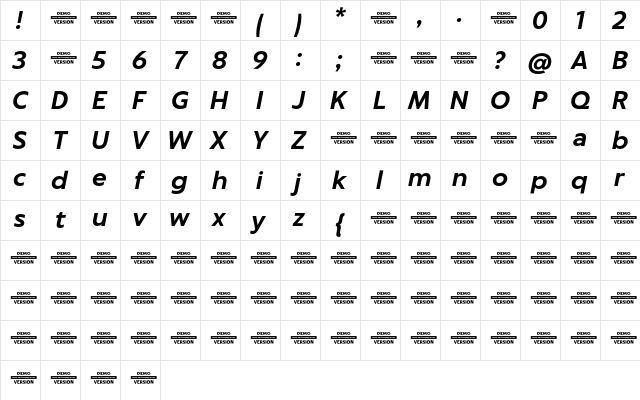
Captura Bold Italic Demo Font Preview
Captura Bold Italic Demo
| Designer | Anita J߲geleit |
Design Context for Captura Typeface
Captura takes a measured approach to typography — its balanced proportions and neutral character make it a reliable workhorse for both digital and print work. Its italic angle brings a sense of urgency and motion to the letterforms. Its bold stroke weight gives it real presence on the page.